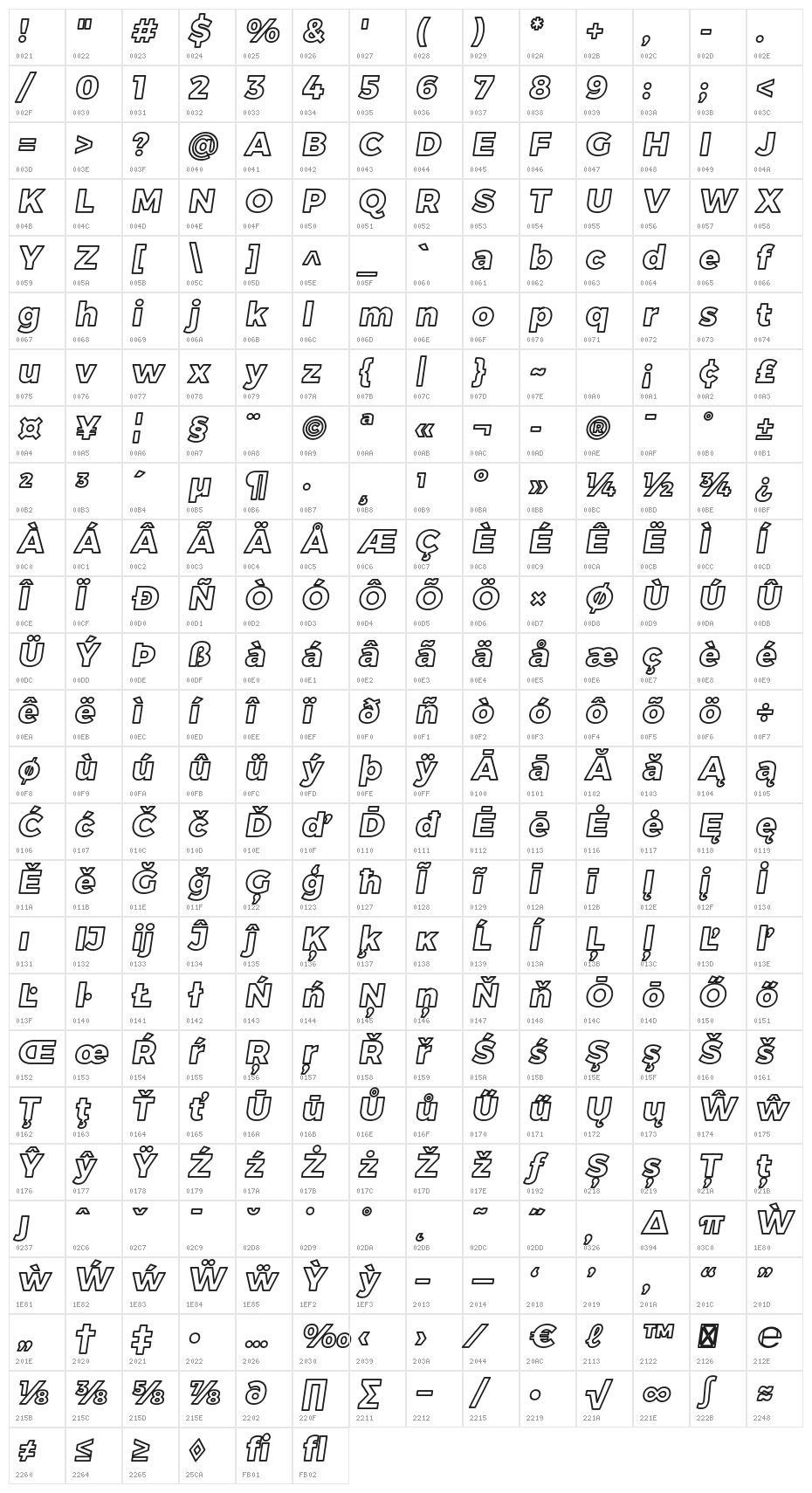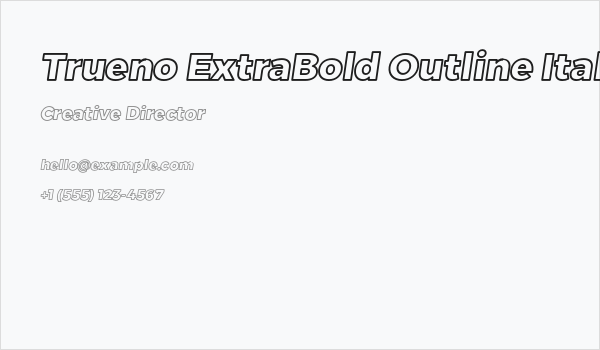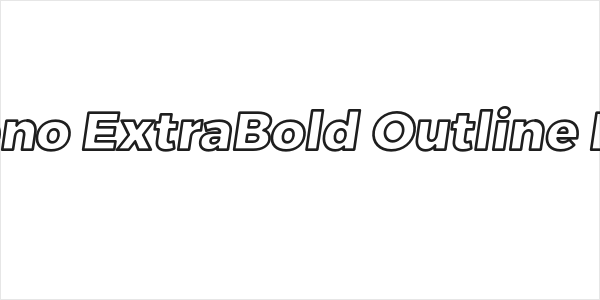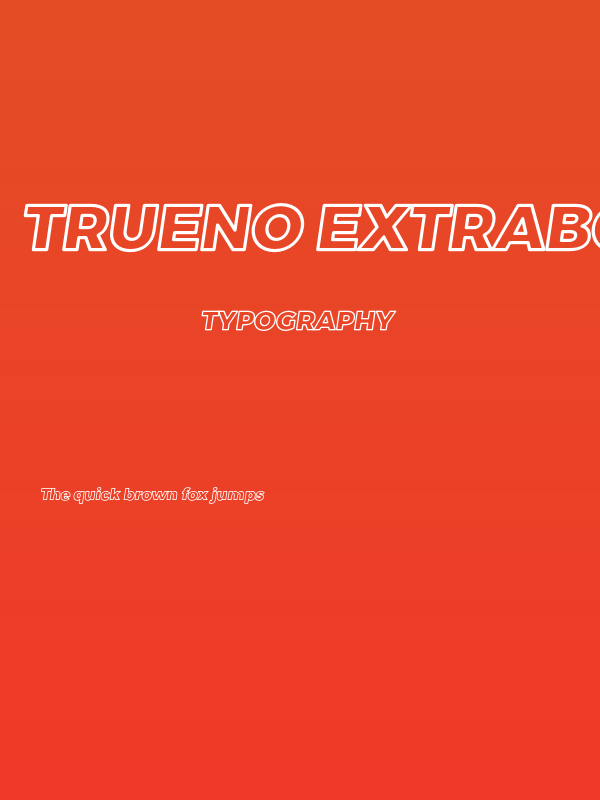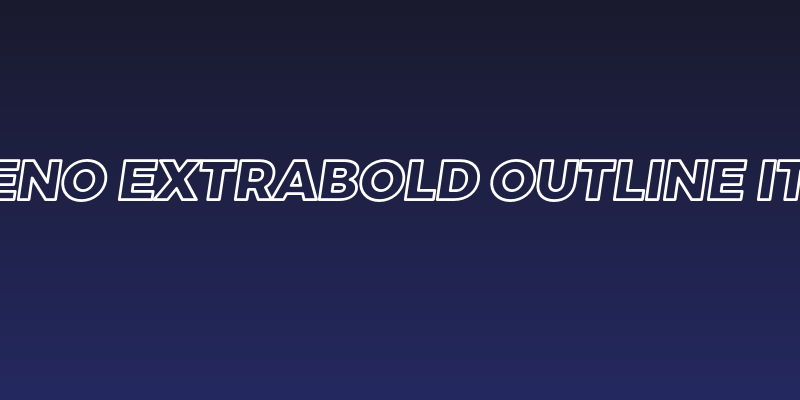
Trueno ExtraBold Outline Italic Font
Trueno ExtraBold Outline Italic Description
This font features a bold and striking outline style that emphasizes each character with a strong presence. The italic slant adds a dynamic and forward-moving energy, making it ideal for attention-grabbing headlines and titles. The uppercase and lowercase letters are well-proportioned, maintaining readability while delivering a modern and edgy aesthetic. The numerals and special characters are consistent with the overall design, ensuring versatility across various applications. Its clean lines and geometric shapes give it a contemporary feel, suitable for projects that require a bold statement.
| Proposed Projects | Ideal for branding, posters, headlines, and any design requiring a bold, modern look. |